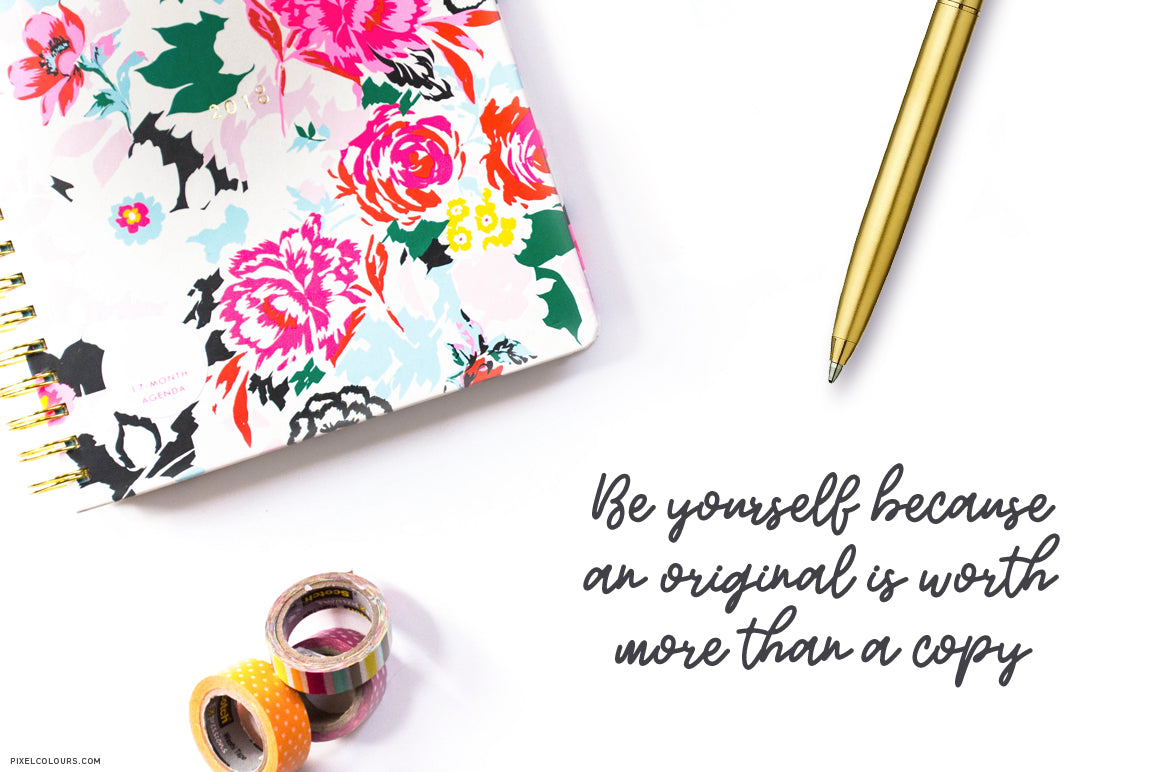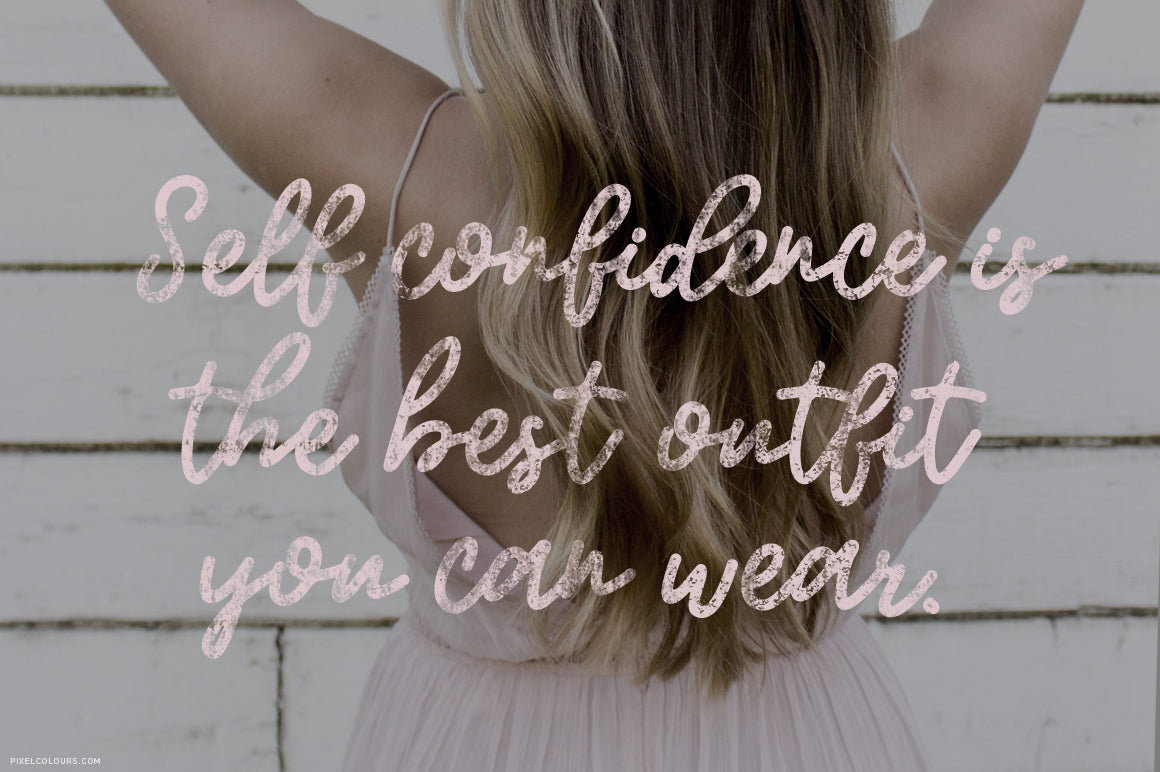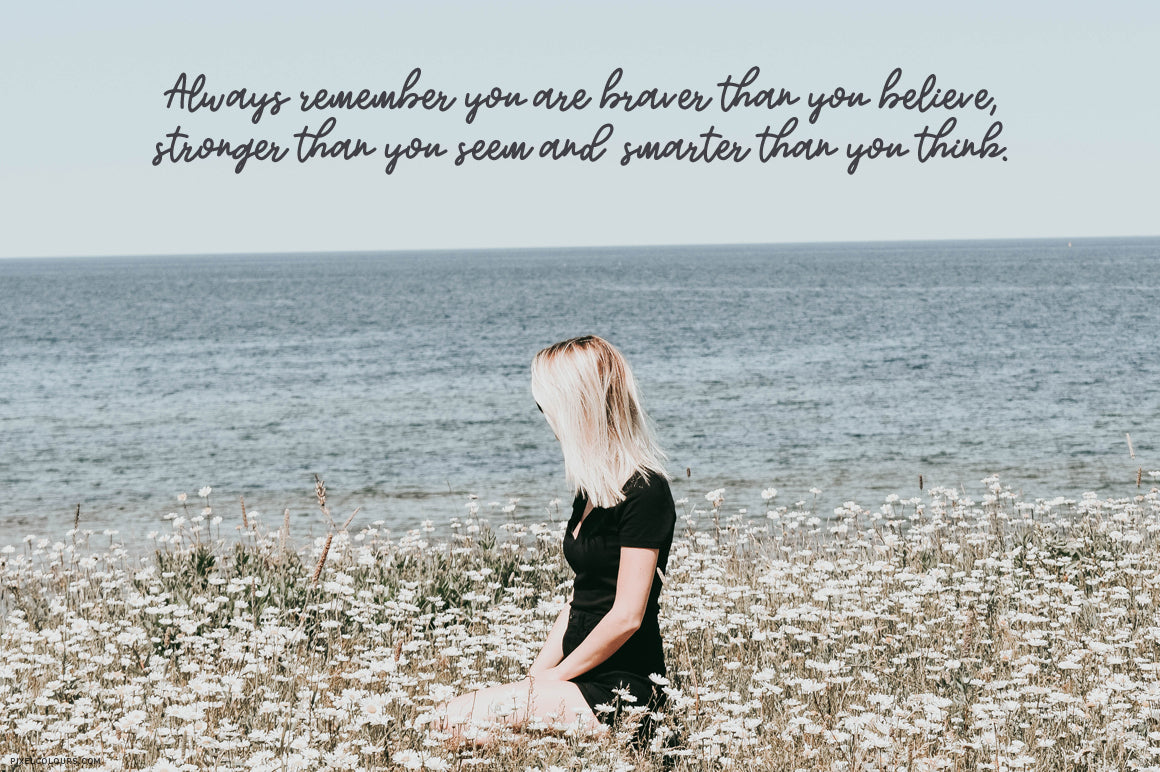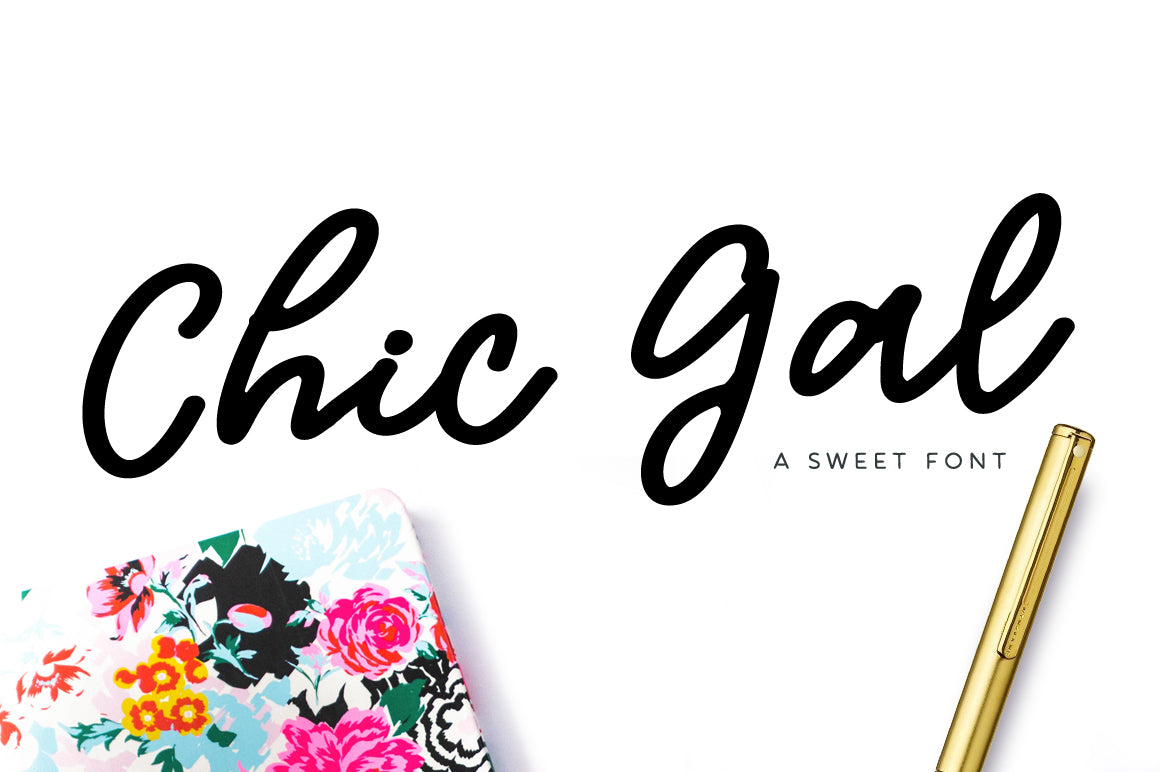
Chic Gal Font
Chic Gal is a clean handwritten font with a playful, feminine style and bouncy baseline. This handwriting font adds charm and personality to your design work, whether you're crafting social media graphics, quote posts, or planner pages. With its girly, modern feel, it works beautifully in branding, packaging, or anything that calls for a touch of imperfect style.
This versatile handwritten font is also great if you’re looking for a typeface that feels casual but still polished. It pairs well with sans serif fonts and is perfect for designers in search of cute typography for their next project.
Ideas for use
- Quote graphics for Instagram or Pinterest
- Branding for beauty, fashion, or handmade shops
- Journals, planners, or notebooks
- Greeting cards or product labels